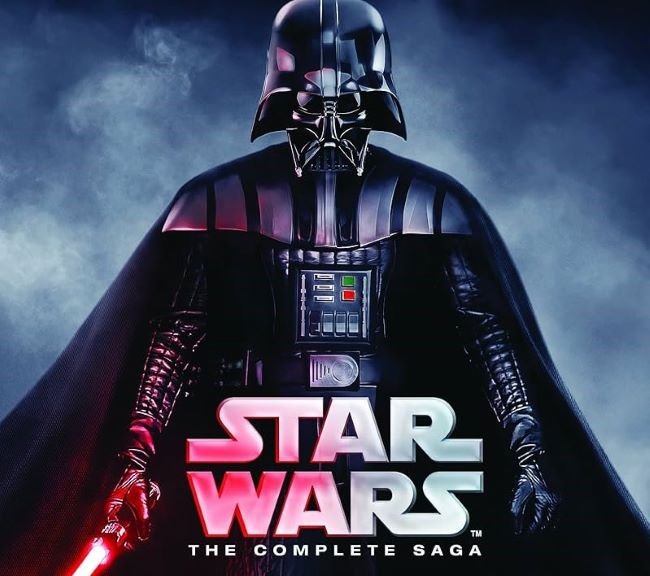
Star Wars font is one of those rare typographic achievements that transcends cinema entirely — it belongs to culture itself. Since 1977, the bold, blocky lettering of George Lucas’ saga has been as inseparable from the franchise as lightsabers and the Force. No official typeface was ever released by the studio, but two fan-made tributes have become the go-to choices for designers: Star Jedi Font by Boba Fonts, which mirrors the iconic logo lettering with striking accuracy, and Death Star Font by Sharkshock, offering a slightly different take on the same unmistakable visual universe.
Together they give designers genuine flexibility — whether the goal is a faithful recreation of the original crawl title treatment or a bolder, more dramatic interpretation that still feels rooted in the galaxy far, far away. Both are freely available and widely used across fan posters, themed events, merchandise mockups, and any creative project that needs to carry the weight of one of the most enduring stories ever told on screen.